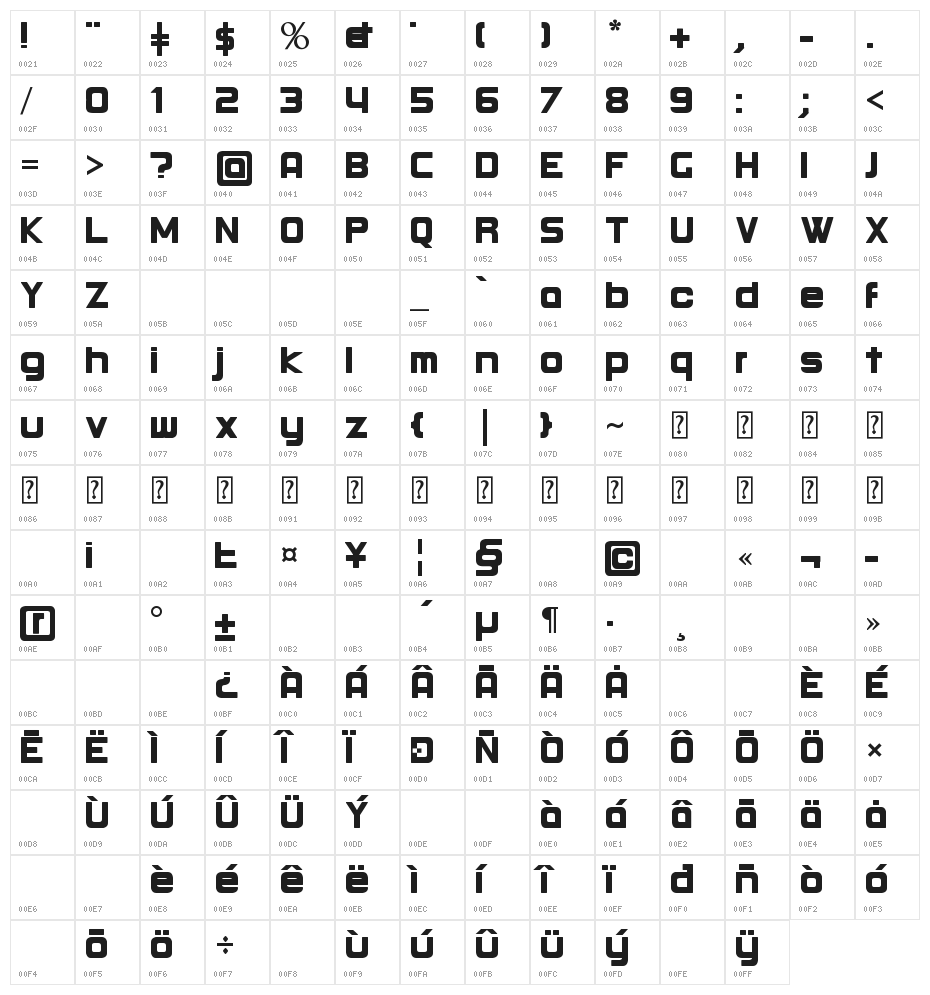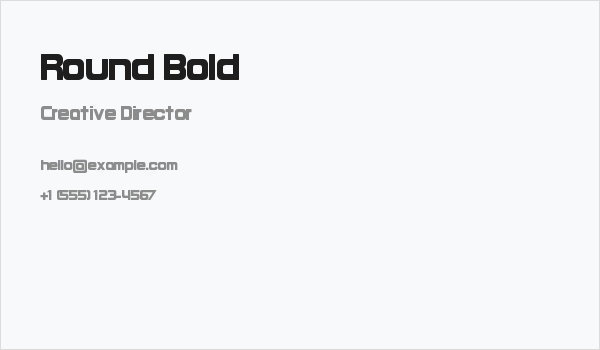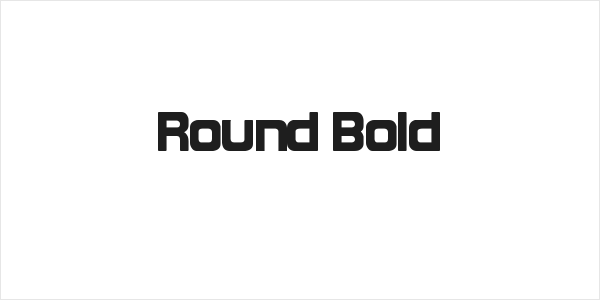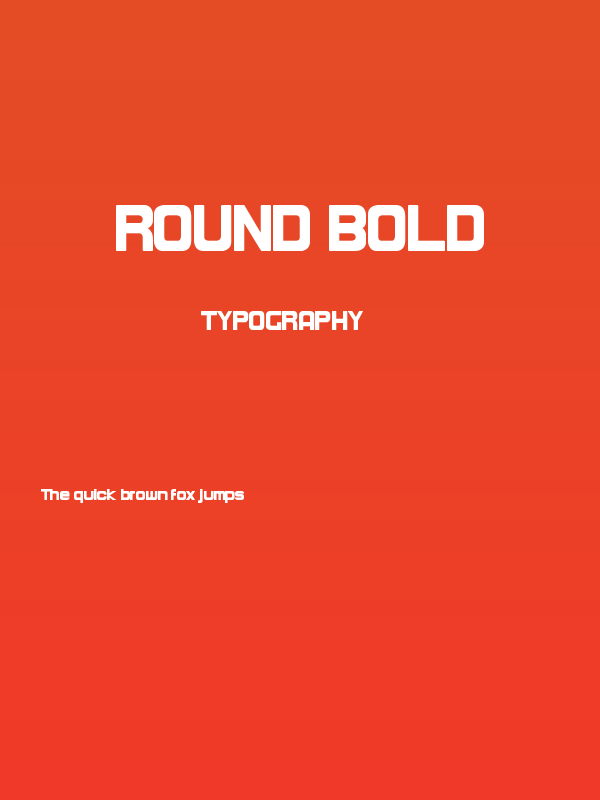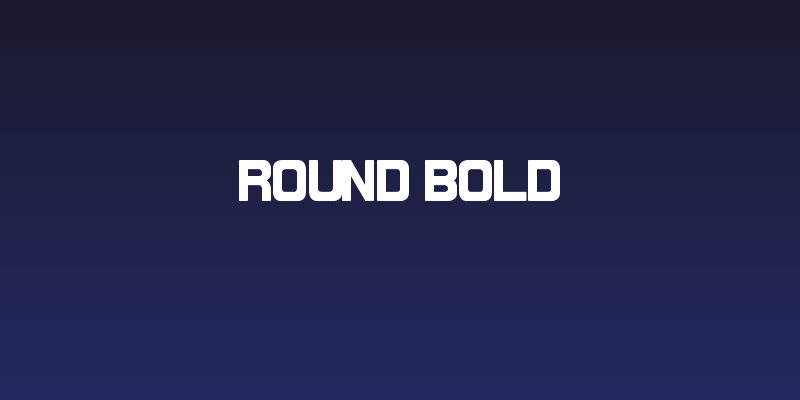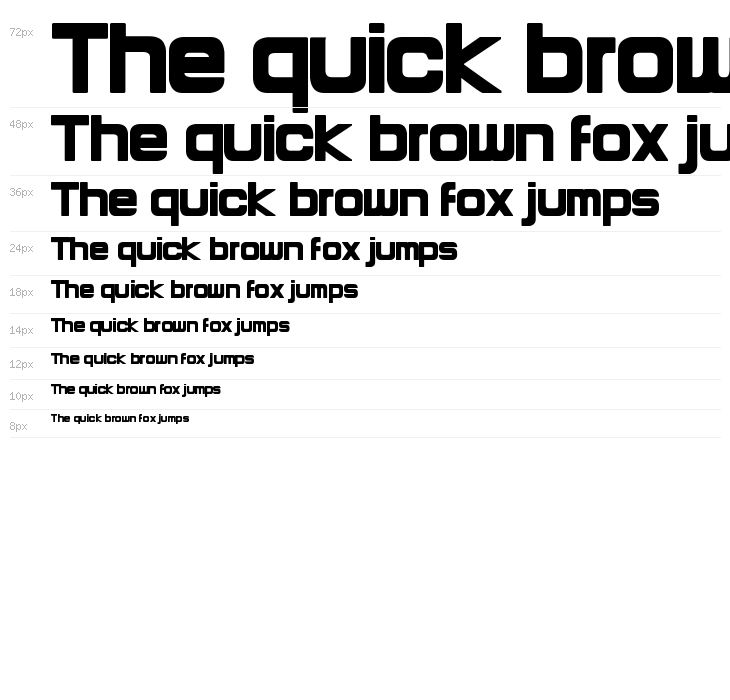
Round Bold Font
| Рекомендуемые проекты | Ideal for branding, logos, headlines, posters, and digital media where a strong yet friendly impression is desired. |